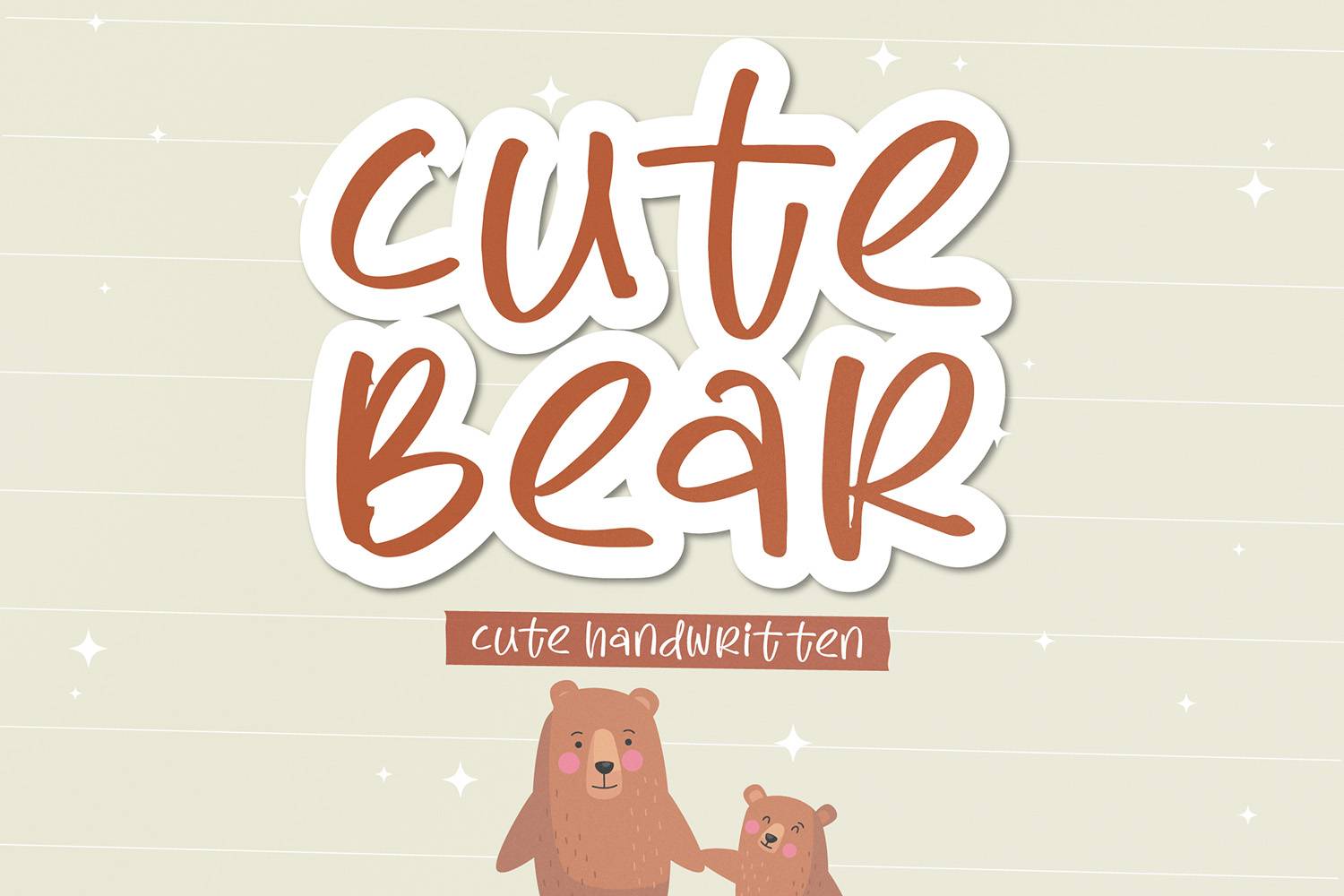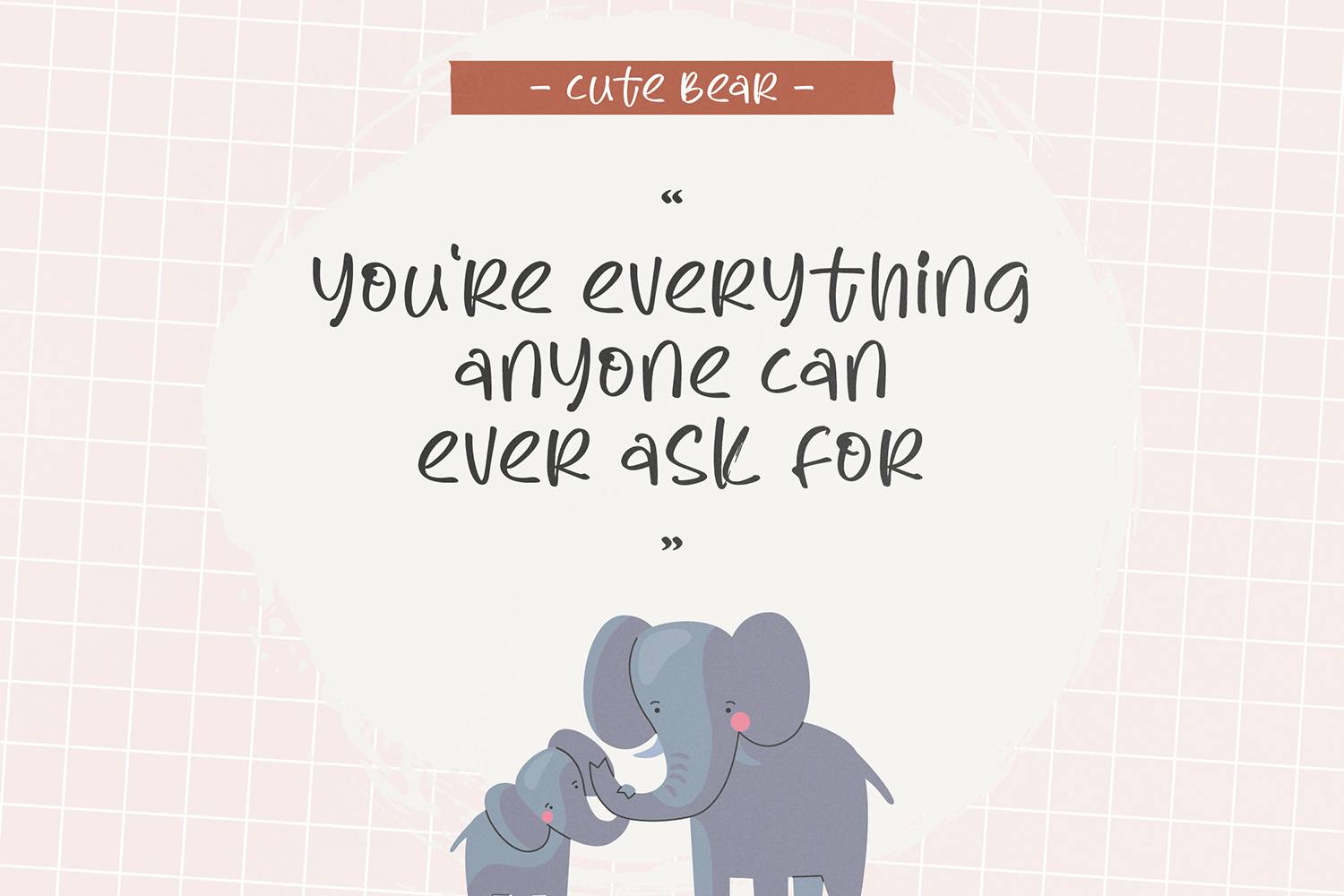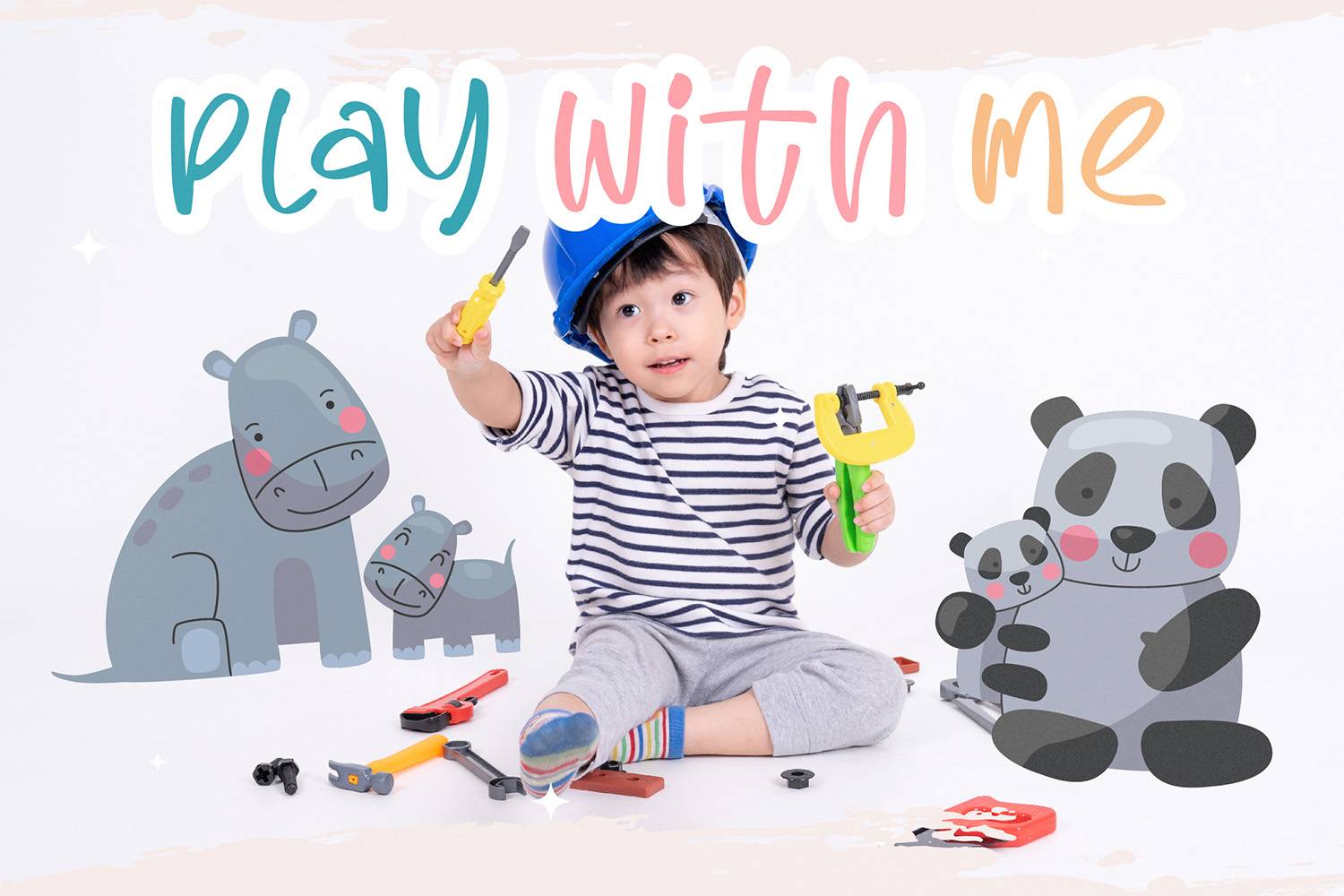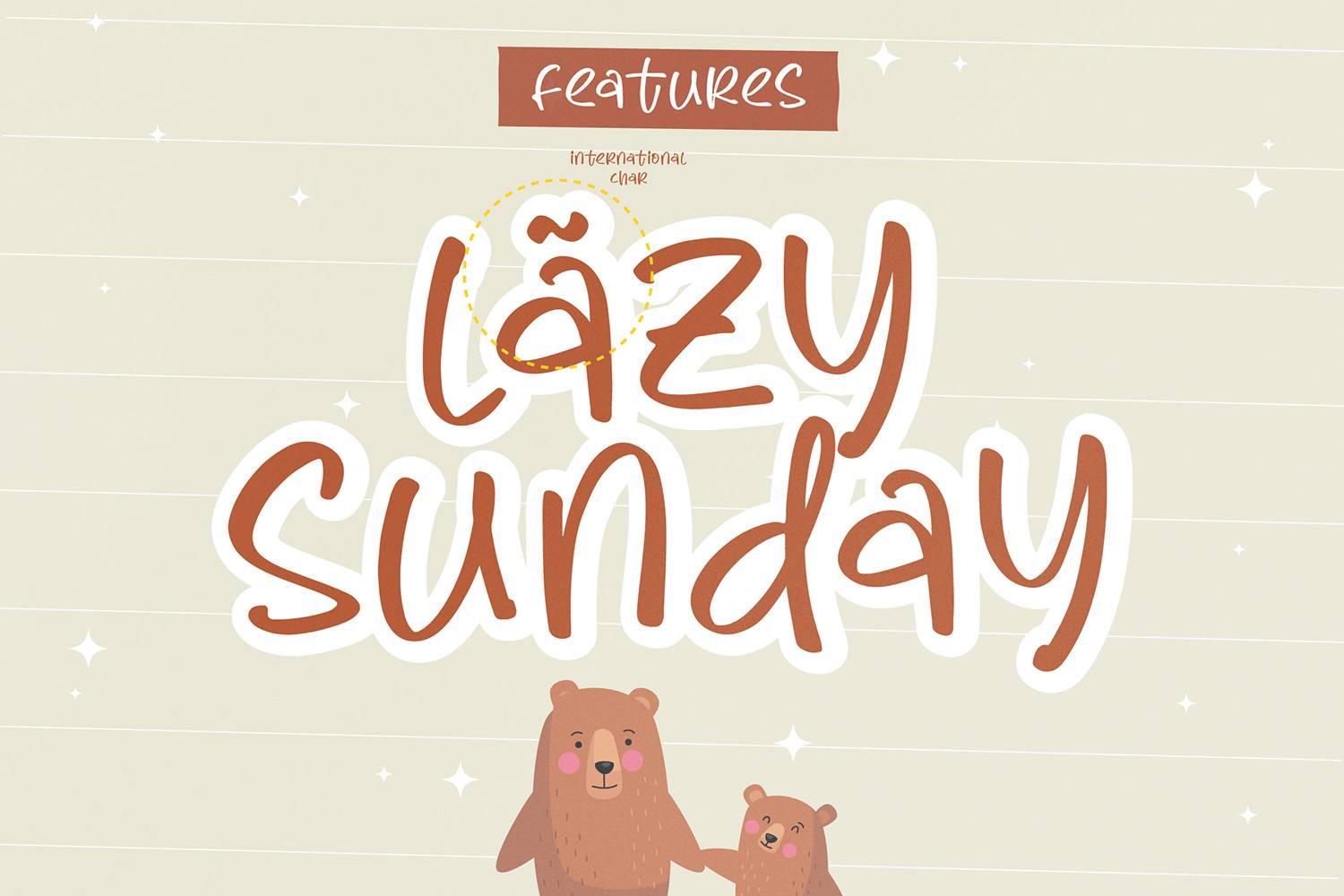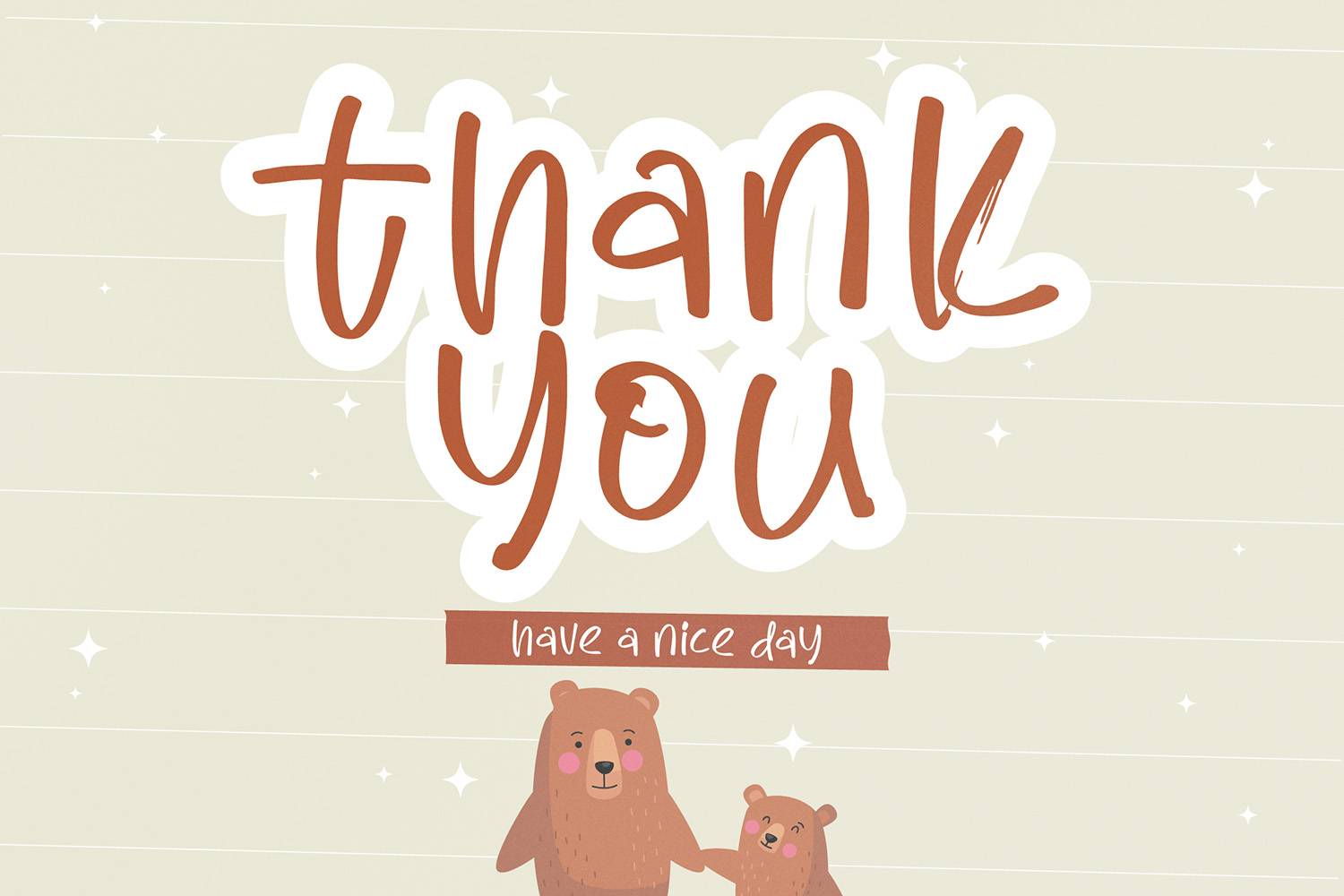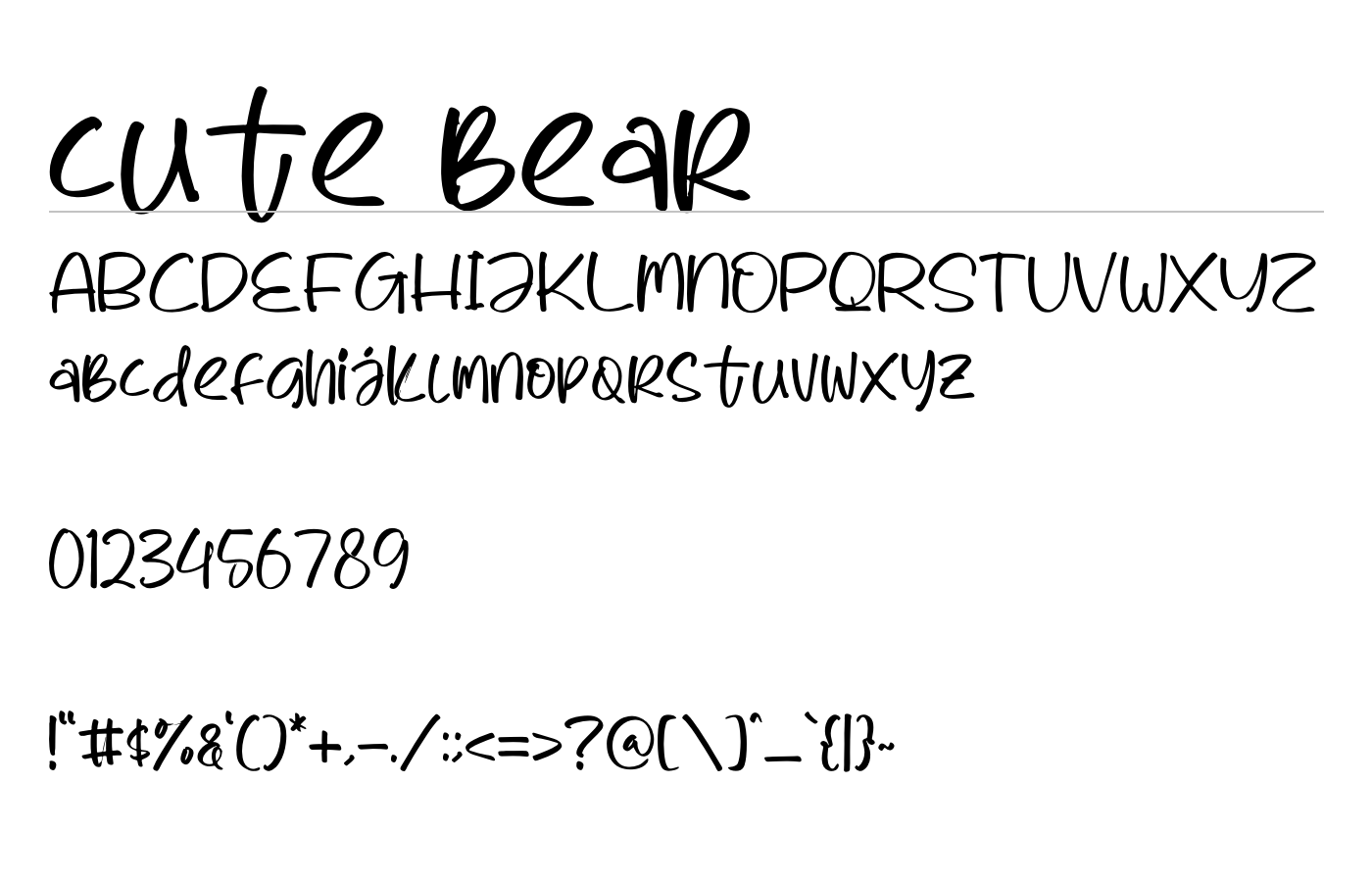
Cute Bear Font is a playful and casual handwritten sans-serif typeface with a light weight and lively, slightly uneven stroke style that evokes a friendly and approachable feel. Its tall x-height and gently rounded letterforms make it ideal for creative projects aimed at a youthful or informal audience, such as children’s books, greeting cards, and lighthearted branding. This font works well in headlines or short texts where a whimsical, personal touch adds charm and warmth.
Cute Bear Font
About Cute Bear Font